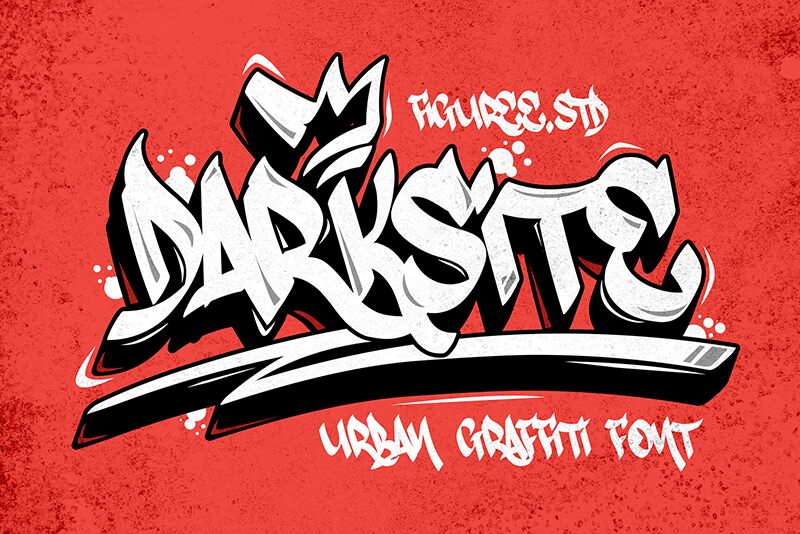
Darksite
Darkside font is a graffiti-style free font designed and released by Figuree Studio. Its expressive and dramatic style has a certain artistic flair with historic influences, ornate design elements, and gothic vibes. Within this typeface, balance is achieved by mixing lines of different weights to craft an aesthetic writing tool suitable for artists and designers.